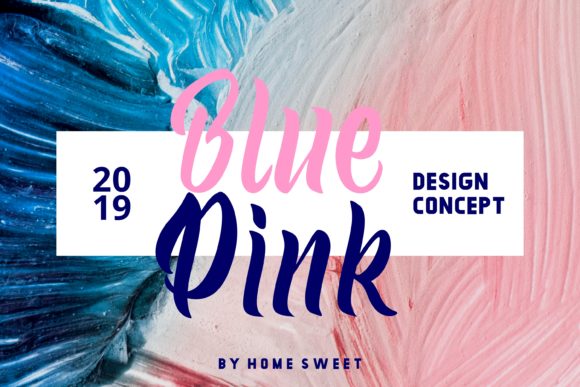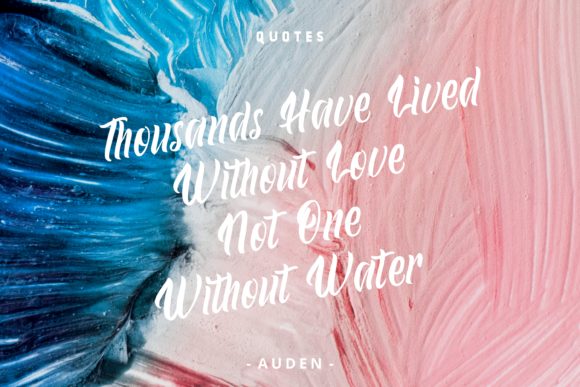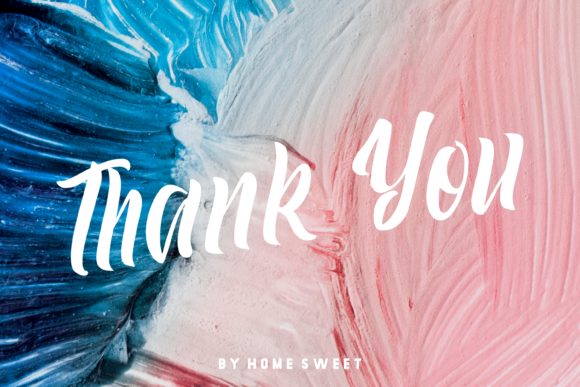
Introduction to Oliver Blue Font
Have you ever been working on a creative project, pouring your heart and soul into it, and then suddenly, the perfect design element comes along and elevates your entire vision? That’s exactly what happened to me when I discovered the Oliver Blue Font. Its bold, handwritten feel instantly sparked inspiration, and I knew I had to share it with fellow designers.
As a valuable design resource, the Oliver Blue Font offers a timeless charm that can add a personal touch to any project. Whether you’re working on a branding project, creating a social media graphic, or designing a wedding invitation, this font is sure to bring a unique flair. With its transparent background and high-quality design, you can easily incorporate it into your work and make it shine.
Key Features of Oliver Blue Font
- High-quality, professional design suitable for various creative projects, including branding, advertising, and digital media.
- Features a unique, modern design style that sets it apart from other fonts in its category.
- Has a large character set, including uppercase and lowercase letters, numbers, and punctuation marks, making it suitable for a wide range of applications.
Honest Review: Oliver Blue Font
As a designer, I’m always on the lookout for high-quality design resources to elevate my creative projects. The Oliver Blue Font caught my attention, and I decided to give it a try. Here’s my honest review.
- Clean and modern design aesthetic
- High-quality font with crisp lines and smooth curves
- Transparent background, making it easy to use on any design
- Only available in a limited number of font weights and styles
- Not ideal for use in complex typography-heavy designs
Overall, I’m impressed with the Oliver Blue Font. While it has some limitations, its clean design and high-quality construction make it a great choice for simple design projects. I’d definitely recommend it to designers looking for a reliable and easy-to-use font.
Tips for Getting the Most Out of Oliver Blue Font
To get the most out of Oliver Blue Font, use it with a transparent background to create a high-quality design. Experiment with different font sizes and styles to create a unique look. This font is also perfect for creating a free download template that you can share with others.
Oliver Blue Font is perfect for creating a variety of designs, including presentations, reports, social media graphics, and more. Its unique and modern look makes it a great choice for creative projects. Whether you’re a designer or just starting out, Oliver Blue Font is a valuable design resource that can help you create high-quality designs.